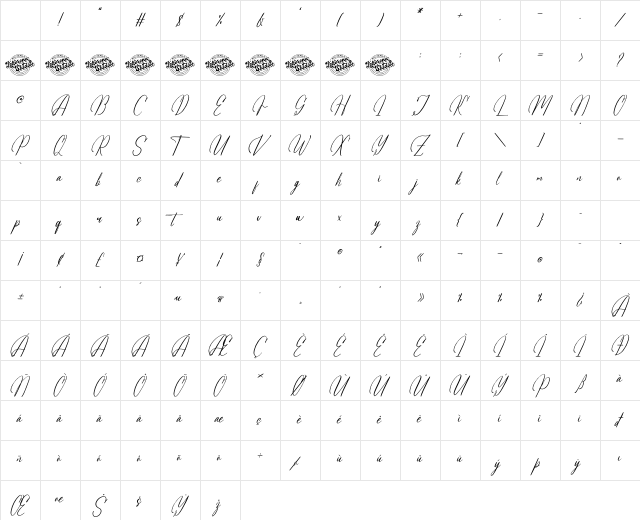
Complete Arathevil Bontegliar DEMO VERSI Regular glyph index. Displaying only characters natively supported by Arathevil Bontegliar DEMO VERSI Regular font.
Arathevil Bontegliar DEMO VERSI is a composed and adaptable typeface that performs quietly and consistently across a wide range of design contexts.